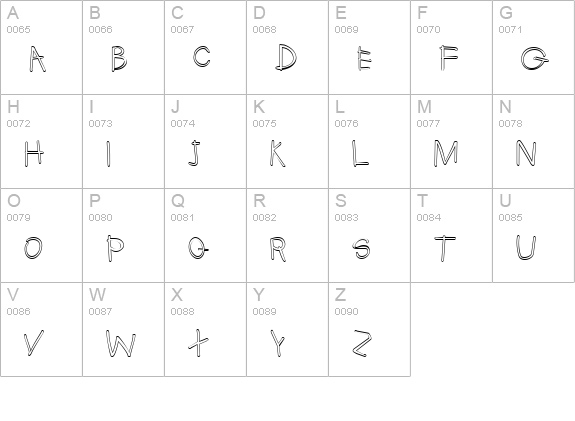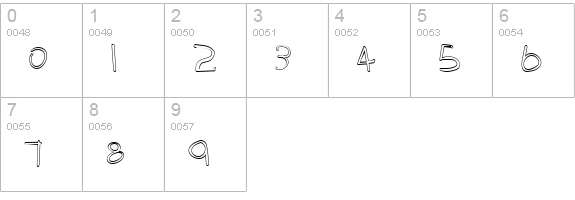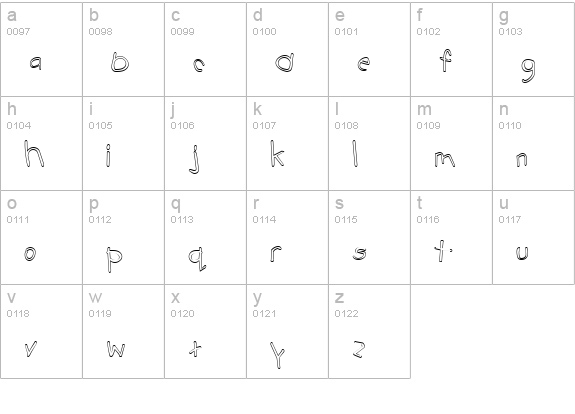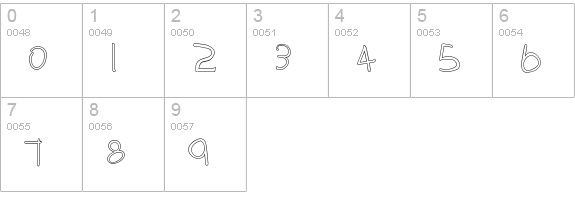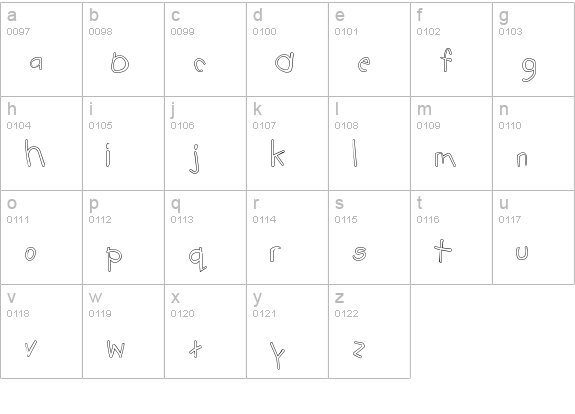
DonaldOpen Font Details
DonaldOpen font is a modern and stylish typeface that exudes elegance and sophistication. With its clean lines and sleek design, this font is perfect for a wide range of design projects, from branding to editorial layouts. The versatility of DonaldOpen font makes it a great choice for both print and digital applications. The best part? DonaldOpen font is completely free to download at FontsMarket.com. This means you can add this beautiful font to your collection without any cost. Whether you are a designer, a business owner, or a creative enthusiast, DonaldOpen font is a valuable addition to your toolkit. Download it today and elevate your designs with this stunning typeface.